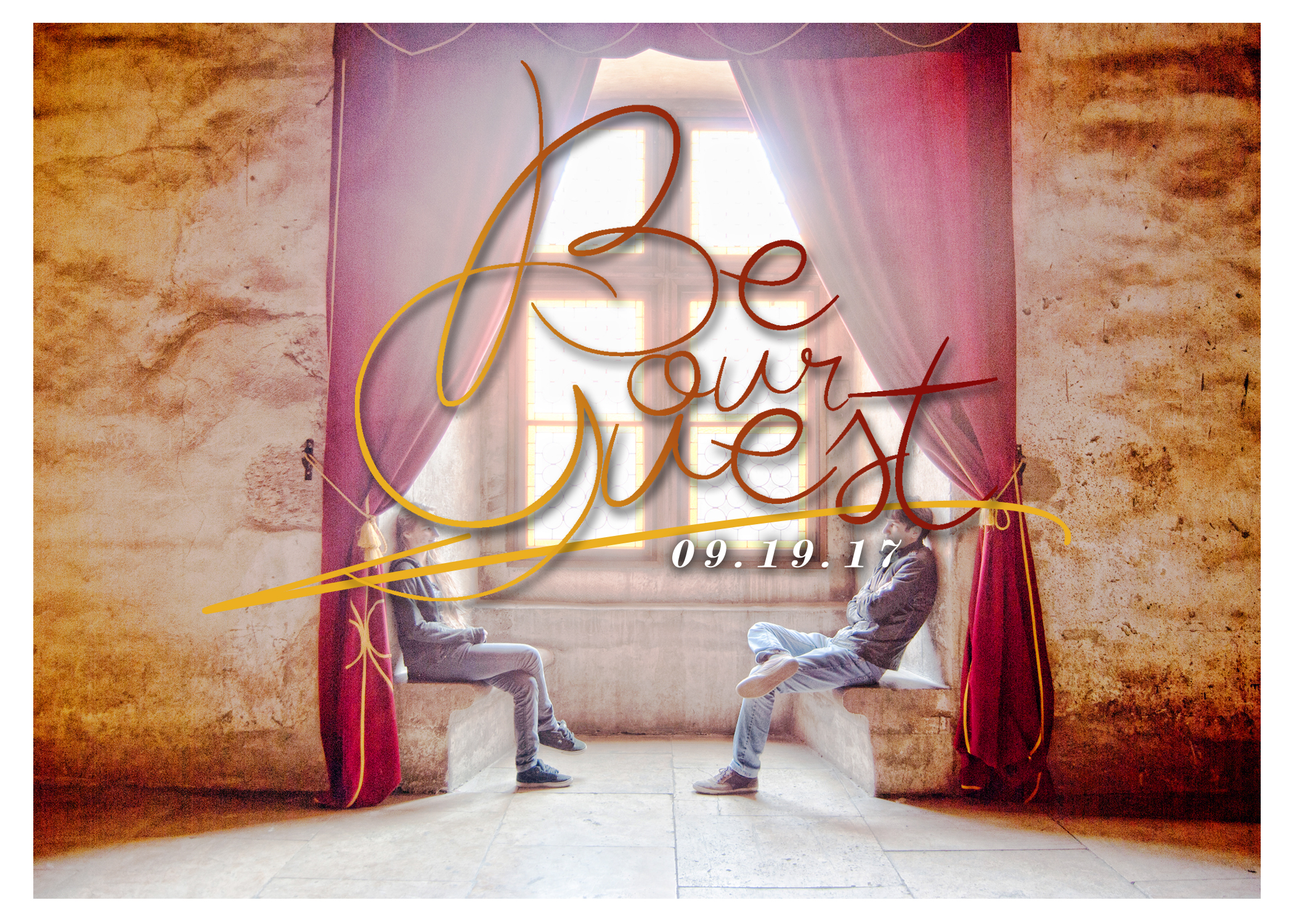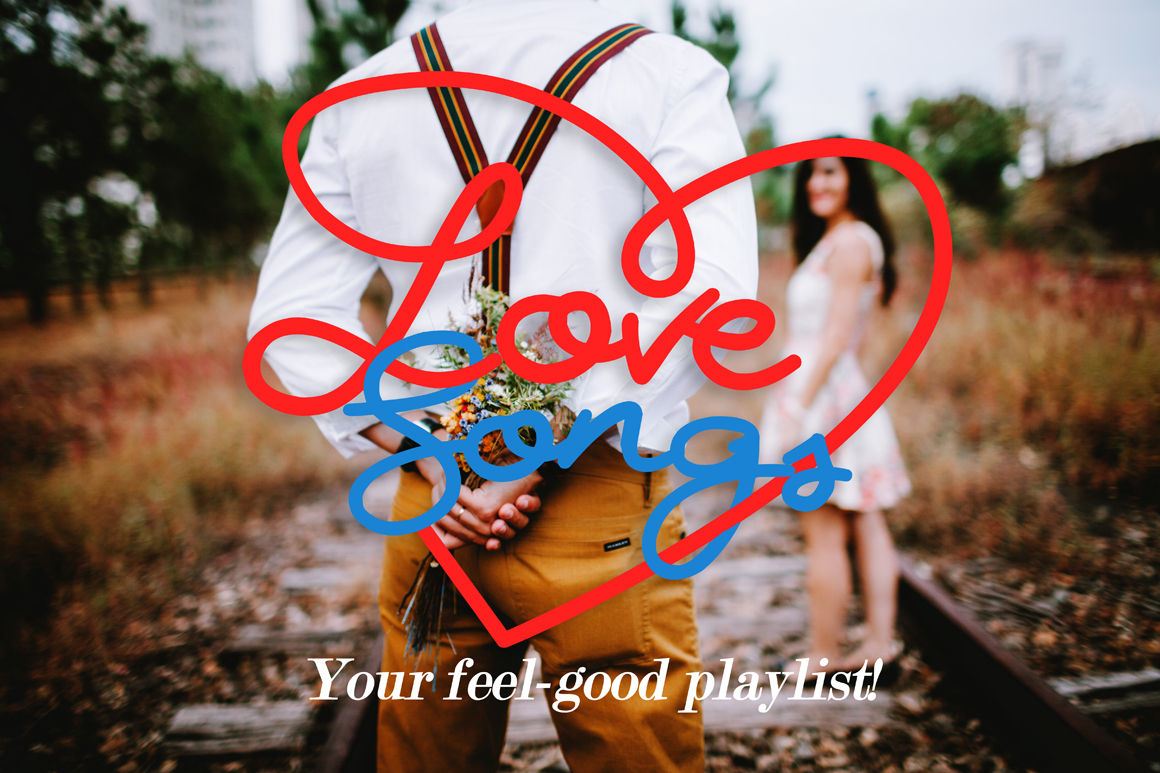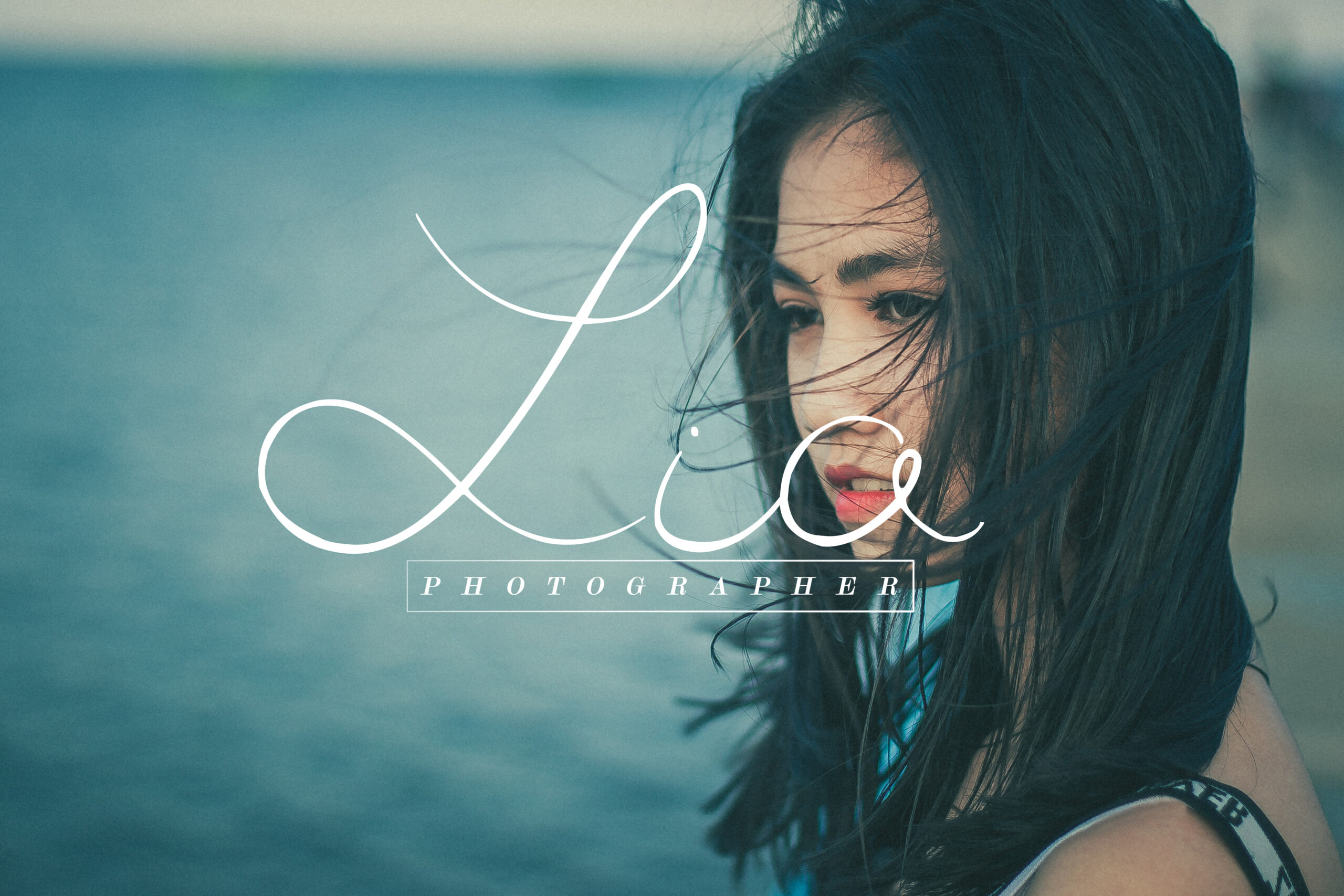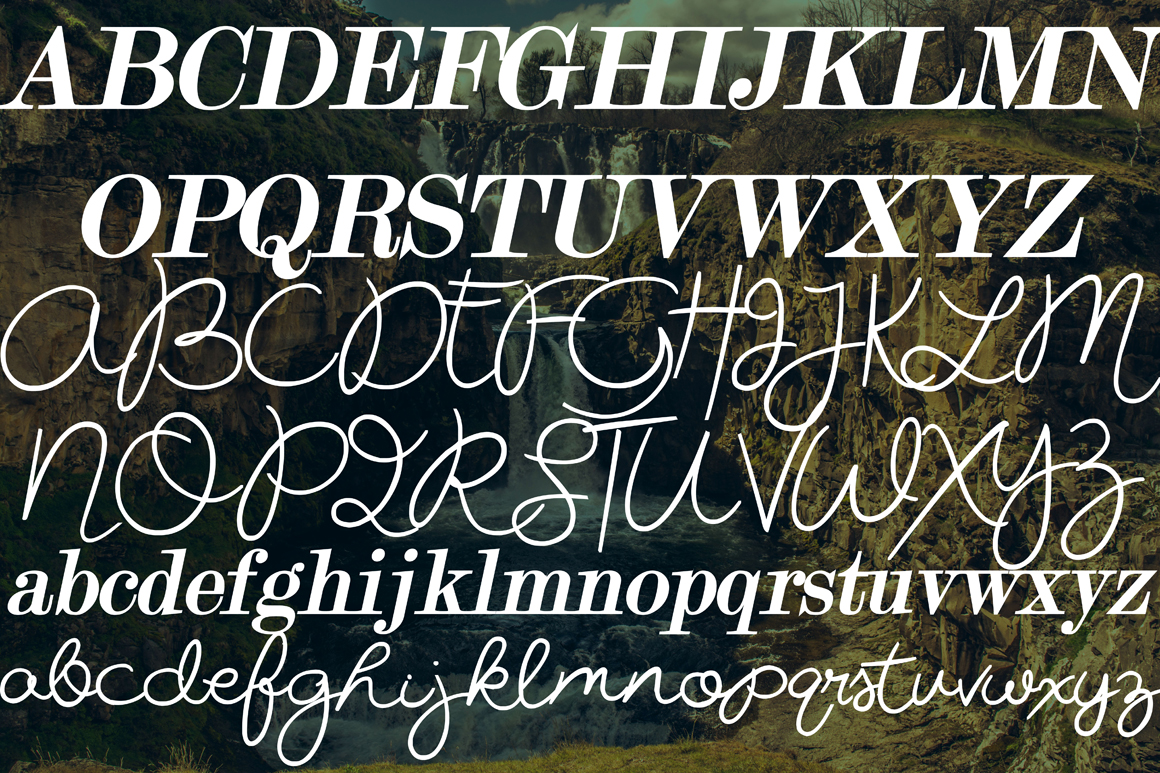
Miss Beautiful Font
About Miss Beautiful Font
Miss Beautiful is a smooth, feminine font. Fresh up your designs by using this lovely handwritten font.
It’s perfect for wedding invites, handwritten-styled designs and much more. The fonts come in a regular and bold version, perfect for printing & cutting.